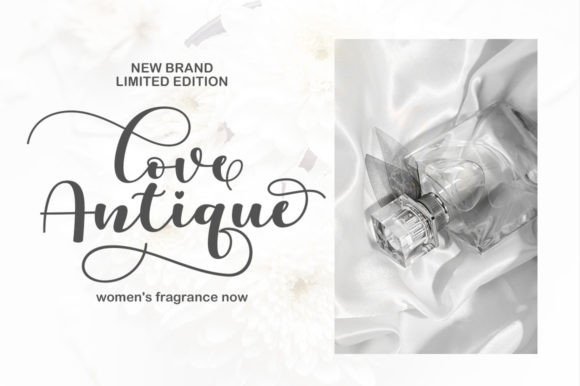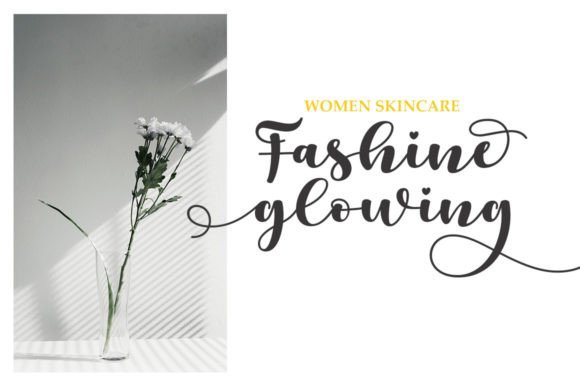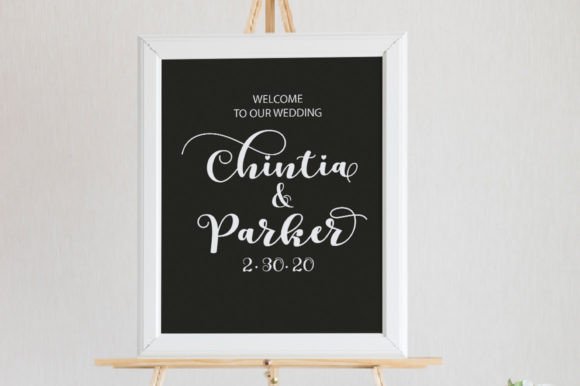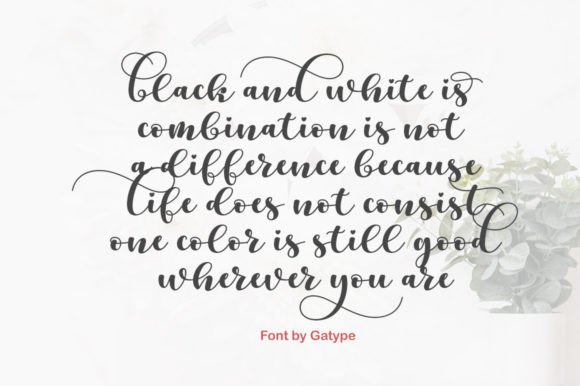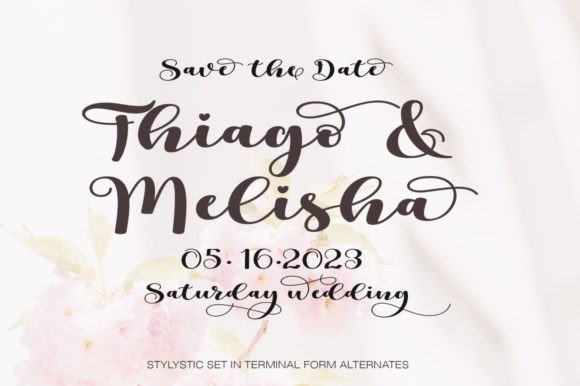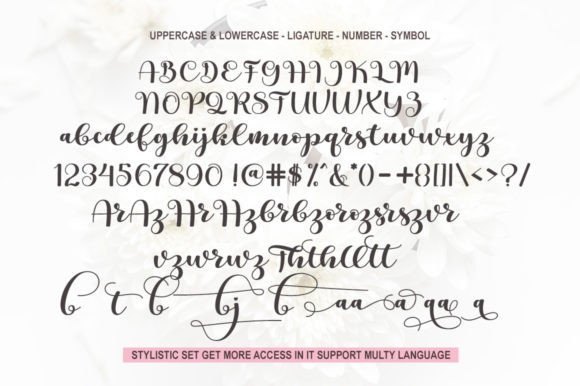
Foline Font: Elevate Your Design with Elegant Calligraphy
In the world of typography, few fonts manage to capture the essence of natural handwriting while offering versatility and style. Foline Font is one such gem that has been making waves in the design community. This stylish and modern calligraphic script is not just a font; it’s a tool that brings personality and elegance to any project. Whether you’re a designer looking to add a personal touch to your work or a crafter aiming to make your creations stand out, Foline Font is an excellent choice.
The Beauty of Foline Font
Foline is characterized by its beautiful OpenType features, including standard ligatures that mimic the fluidity and imperfections of natural handwriting. This means that when you use Foline, your text will look like it was written by hand, adding a warm and personal touch to your designs. The font’s calligraphic style is both modern and stylish, making it perfect for a variety of applications, from logos and stationery to product design and beyond.
Personalization Made Easy
One of the standout features of Foline Font is its high degree of customizability. The font comes with many alternative glyphs, binders, and swashes, allowing you to easily personalize its look to fit your project’s needs. This flexibility means you can use Foline to create unique and distinctive designs that reflect your brand’s personality or your personal style. Whether you want to add a touch of elegance or a dash of whimsy, Foline gives you the tools to make it happen.
Ideal for Various Projects
Foline’s versatility makes it suitable for a wide range of design projects. Here are a few ideas where Foline Font can make a significant impact:
- Logos: Create a memorable brand logo that stands out with Foline’s unique and stylish script.
- Stationery: Add a personal touch to your letters, invitations, and cards with Foline’s elegant calligraphy.
- Product Design: Use Foline to add labels, packaging, or branding elements that give your products a dynamic and personal vibe.
Technical Features of Foline Font
For those interested in the technical aspects, Foline Font utilizes OpenType features, which allow for advanced typographic capabilities. Some of its key features include:
- Standard Ligatures: Automatically replace letter combinations with more aesthetically pleasing ligatures.
- Alternative Glyphs: Access to a variety of glyphs to customize the look of your text.
- Swashes and Binders: Add flair to your designs with decorative swashes and binders.
Tips for Using Foline Font
To get the most out of Foline Font, consider the following tips:
- Experiment with Ligatures: Play around with the ligatures to find combinations that work best for your design.
- Mix and Match Glyphs: Don’t be afraid to try out different glyphs to add variety to your text.
- Adjust Font Size and Color: Experiment with different sizes and colors to find the perfect look for your project.
Foline Font is a powerful tool for designers and crafters looking to add a touch of elegance and personality to their work. Its stylish calligraphic script, combined with advanced OpenType features, makes it an excellent choice for a wide range of projects. With its high degree of customizability and versatility, Foline is sure to become a favorite in your font collection. So, why settle for ordinary when you can create something extraordinary with Foline Font?